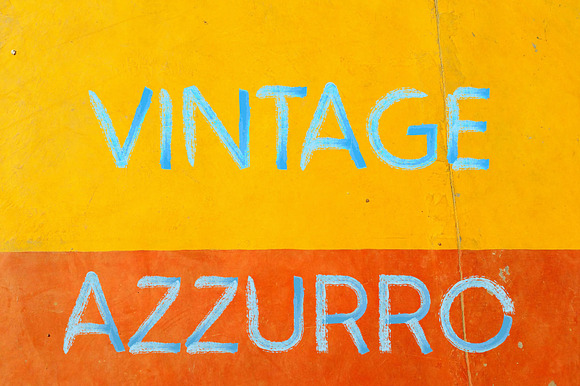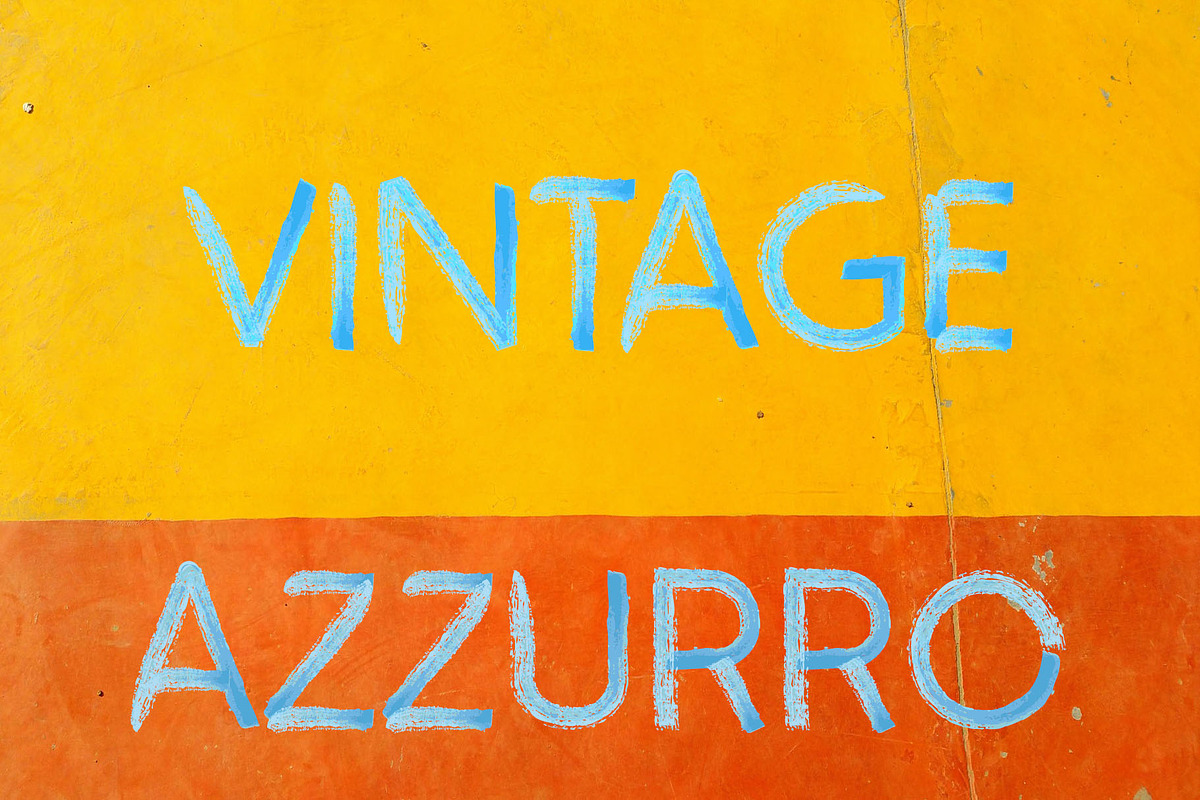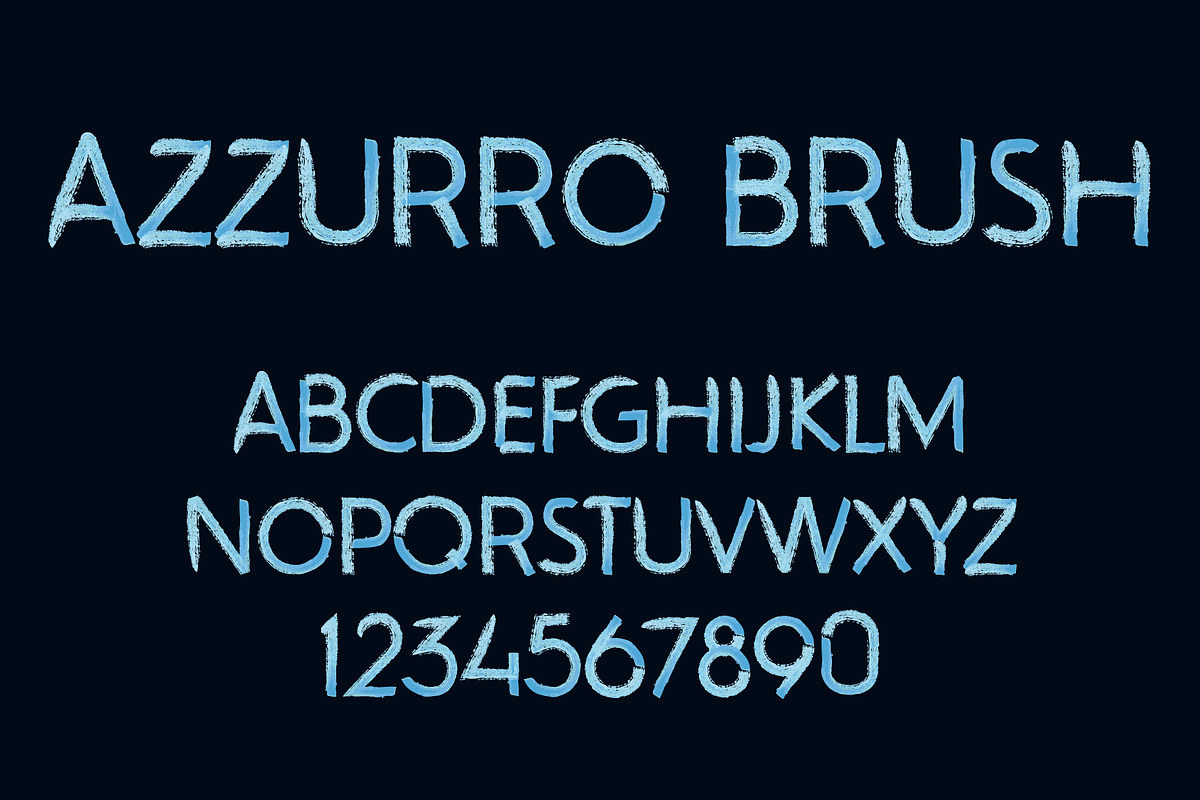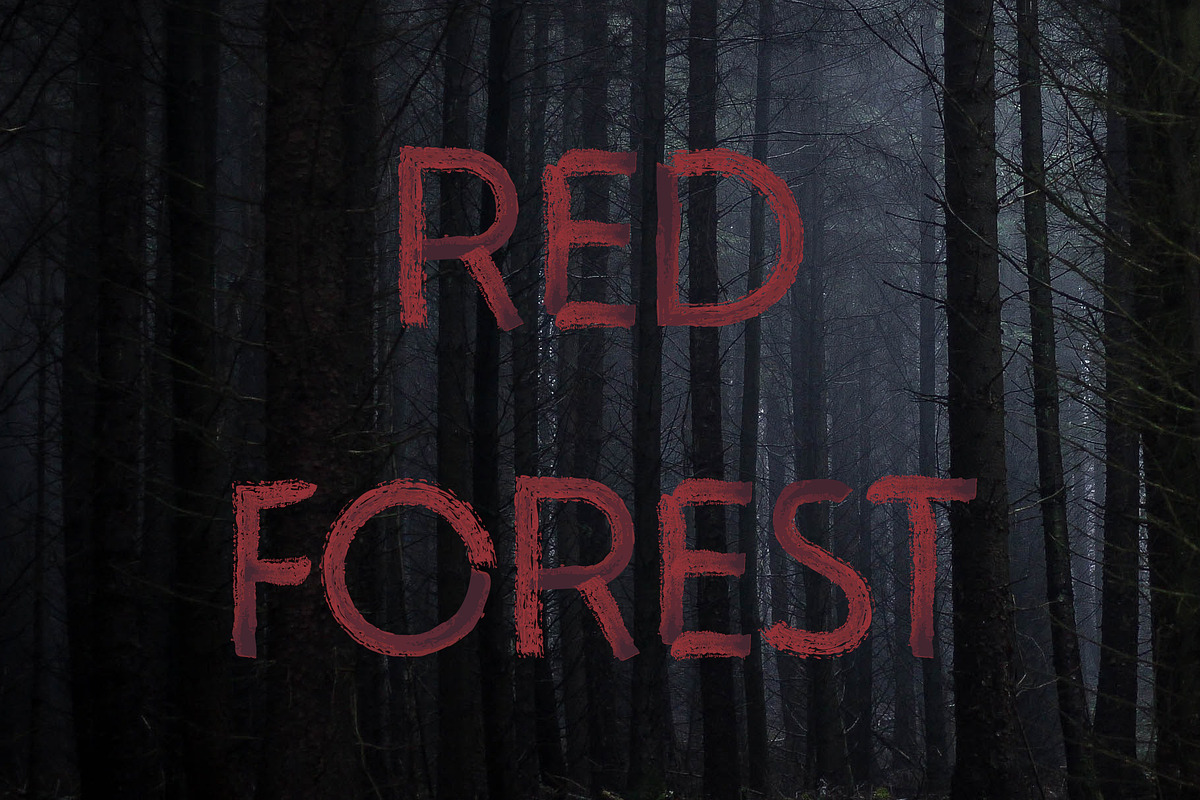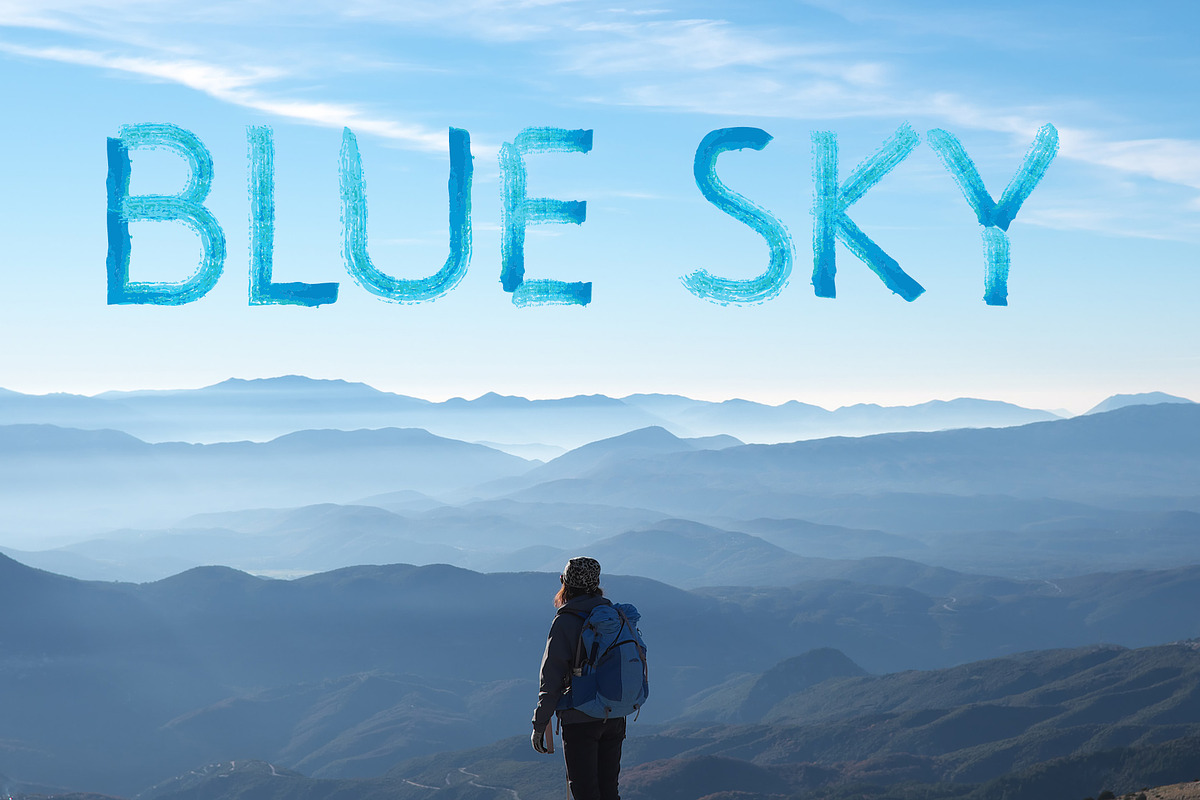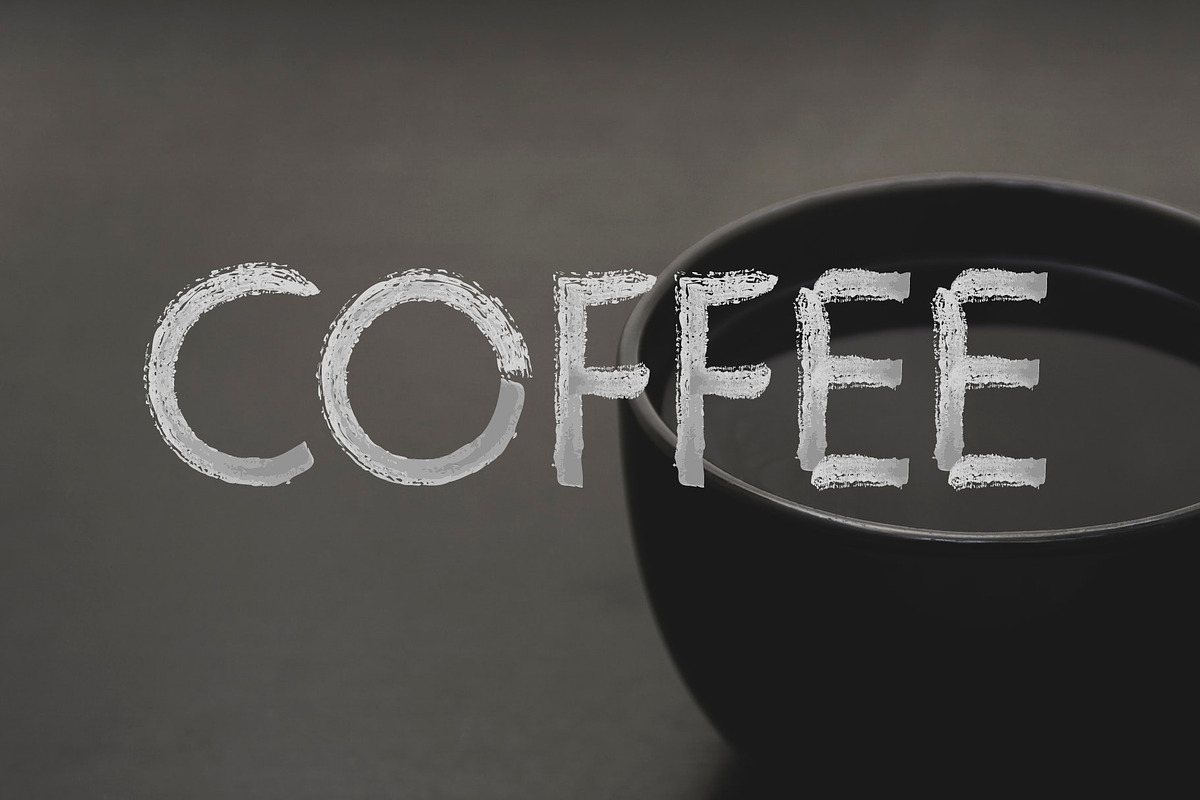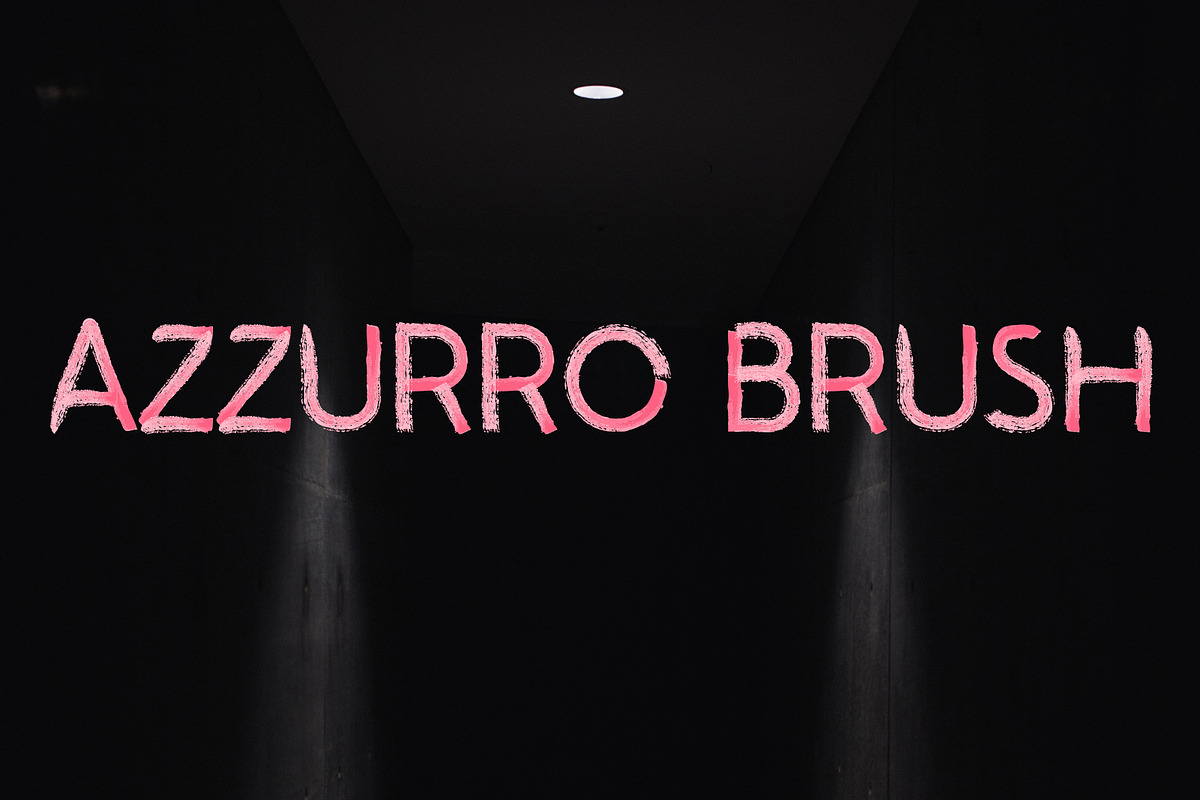
Azzurro SVG font
Azzurro(SVG font) is a color sans serif.
Great for posters, logos, packaging, invitations, websites, T-Shirts and more.
Why Azzurro SVG font is worth a look
Azzurro SVG font by vladocar fits naturally into Branding, posters, packaging, typography.